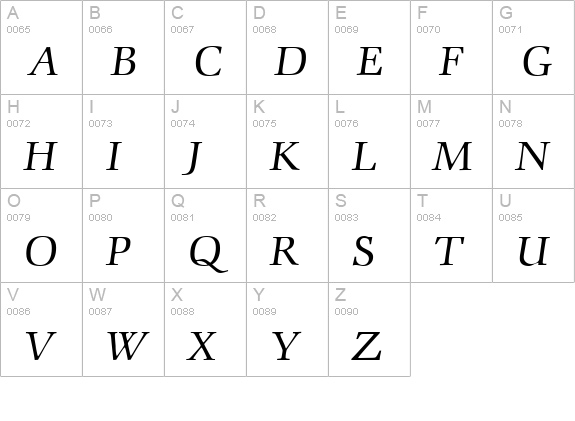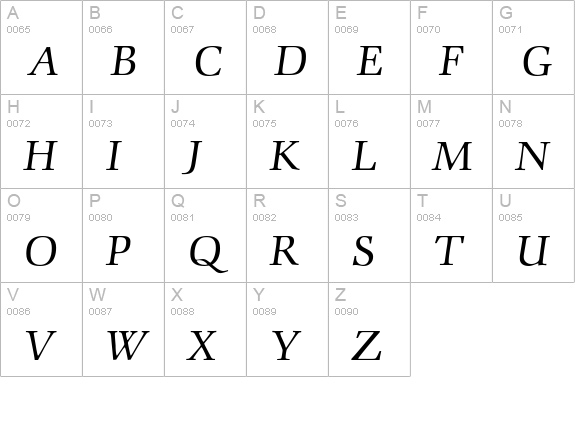
C792-Roman-Italic Font Details
C792-Roman-Italic is a distinctive, italic variant in the C792 typeface family \xE2\x80\x94 well suited to design and typography projects.
The C792-Roman-Italic font is a classic and elegant typeface that exudes sophistication and charm. Its sleek and slanted letterforms give off a sense of style and grace, making it a perfect choice for projects that require a touch of refinement. This font is designed with precision and attention to detail, ensuring that each character is beautifully crafted and visually appealing. The Roman-Italic style adds a timeless quality to any design, making it suitable for a wide range of applications, from formal invitations to branding materials. What's even better is that the C792-Roman-Italic font is available for free download at FontsMarket.com. This means that you can easily access this stunning typeface and use it in your projects without any cost. Don't miss out on this opportunity to enhance your designs with the beauty and elegance of the C792-Roman-Italic font. Download it now and elevate your creations to new heights of sophistication.